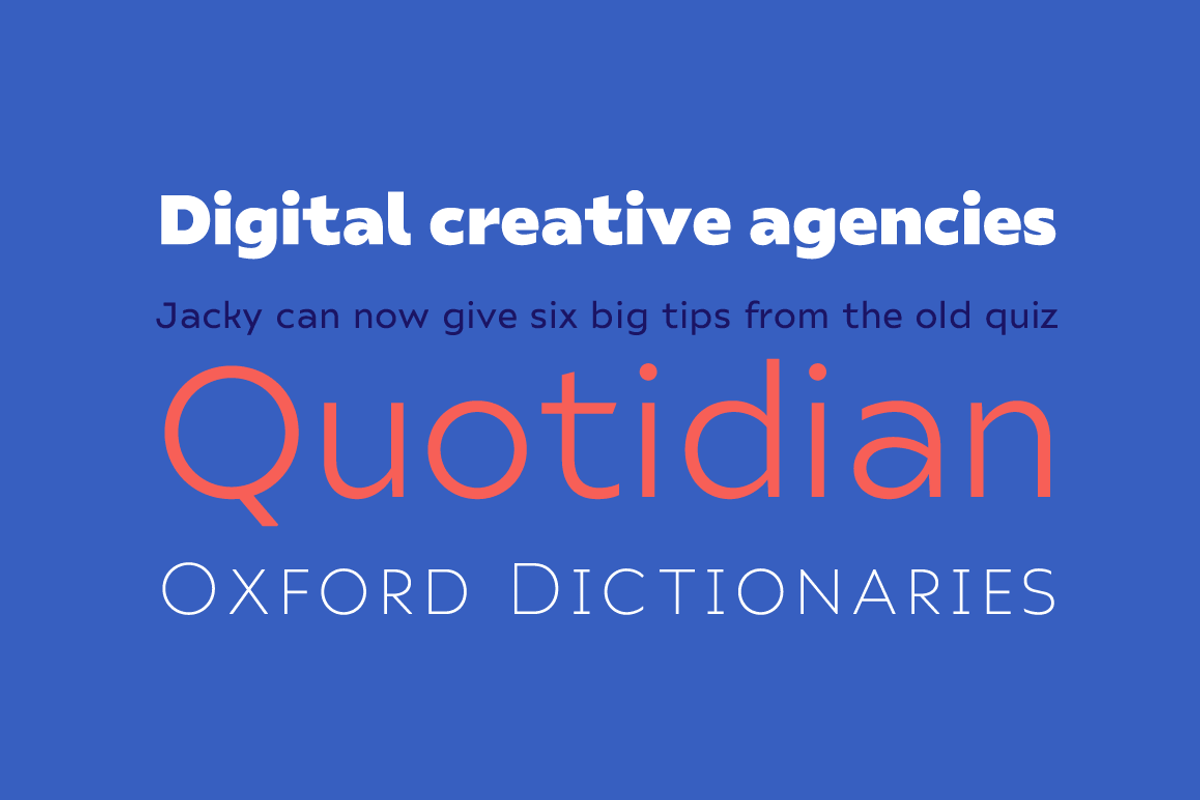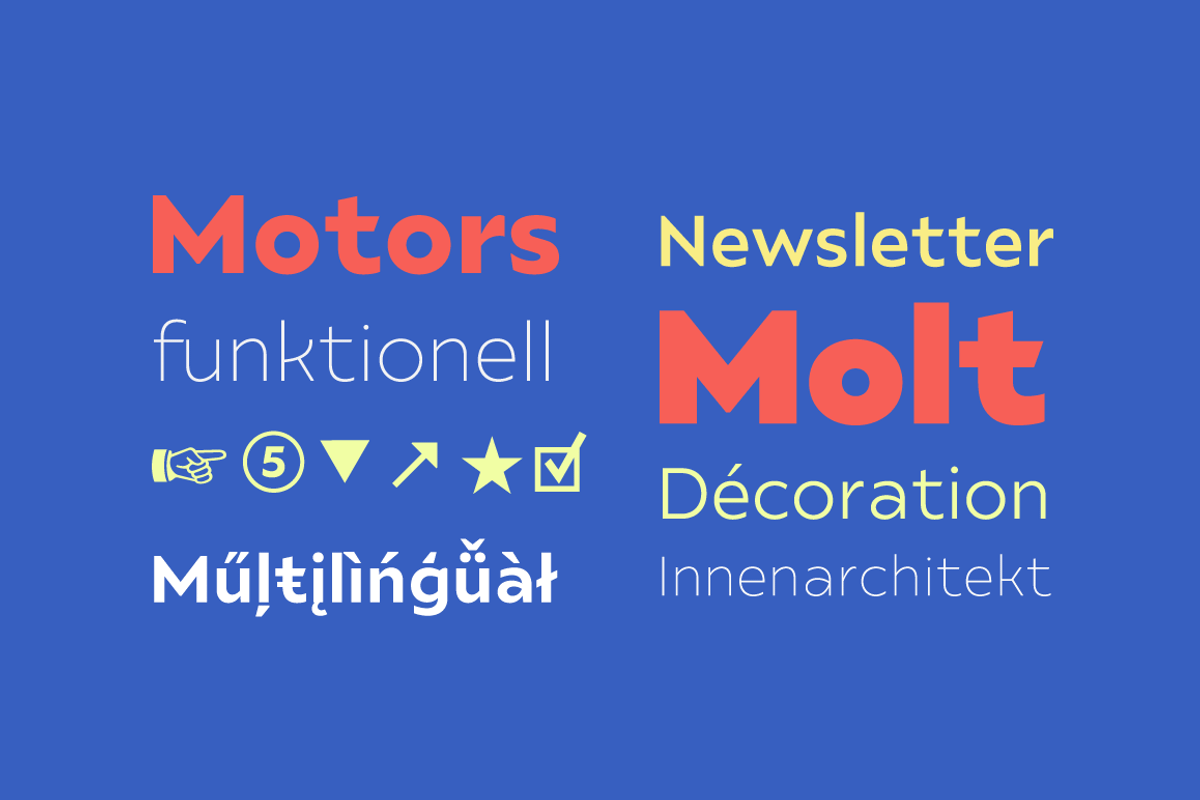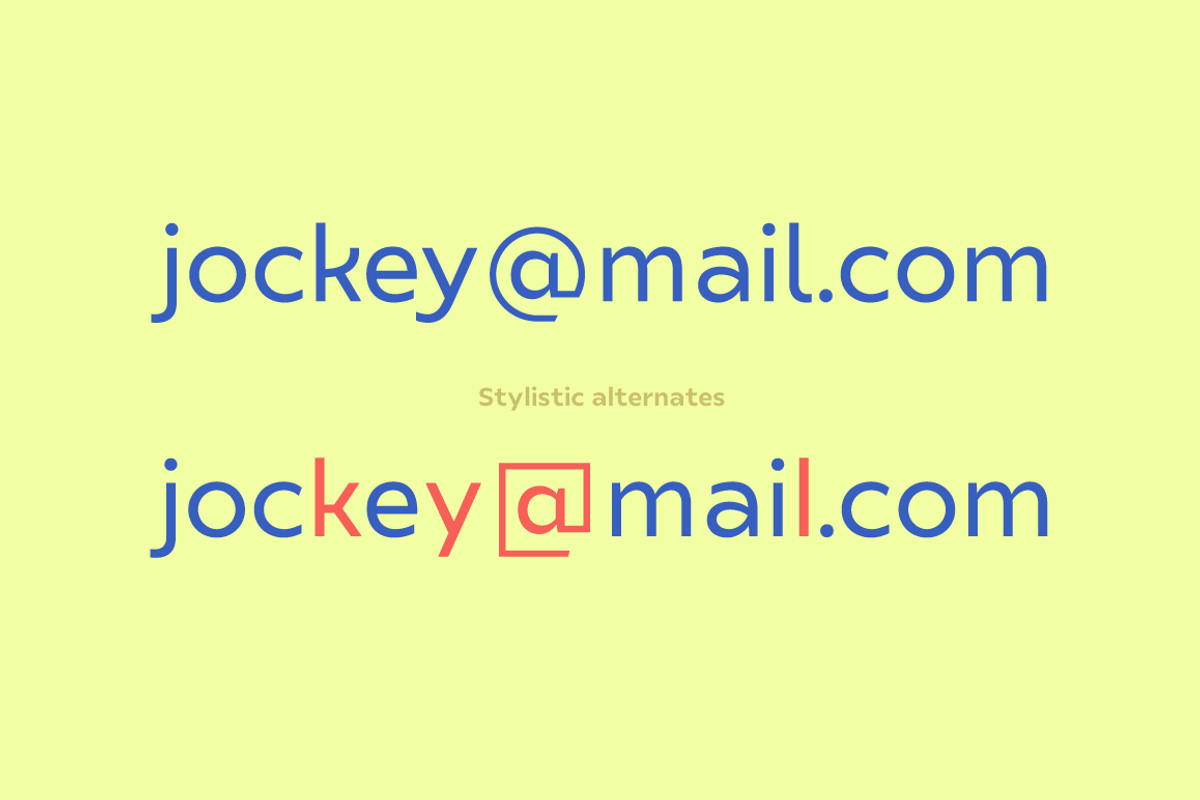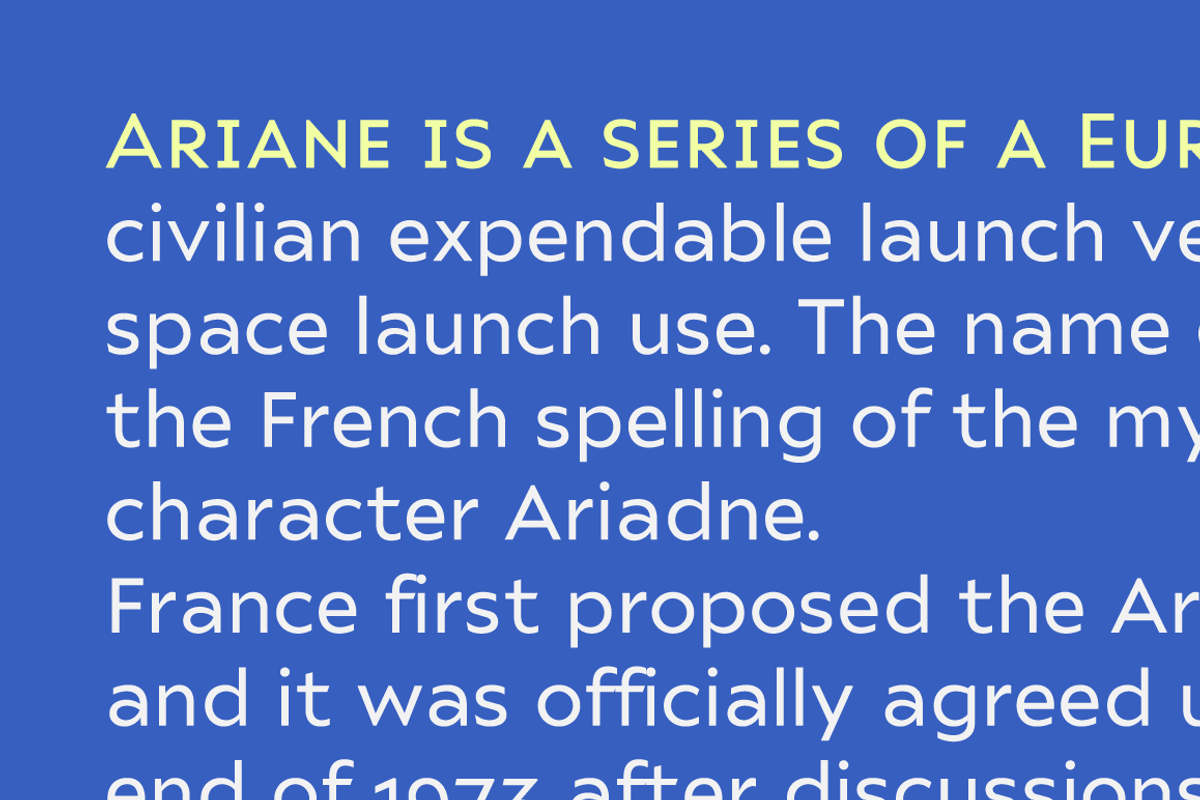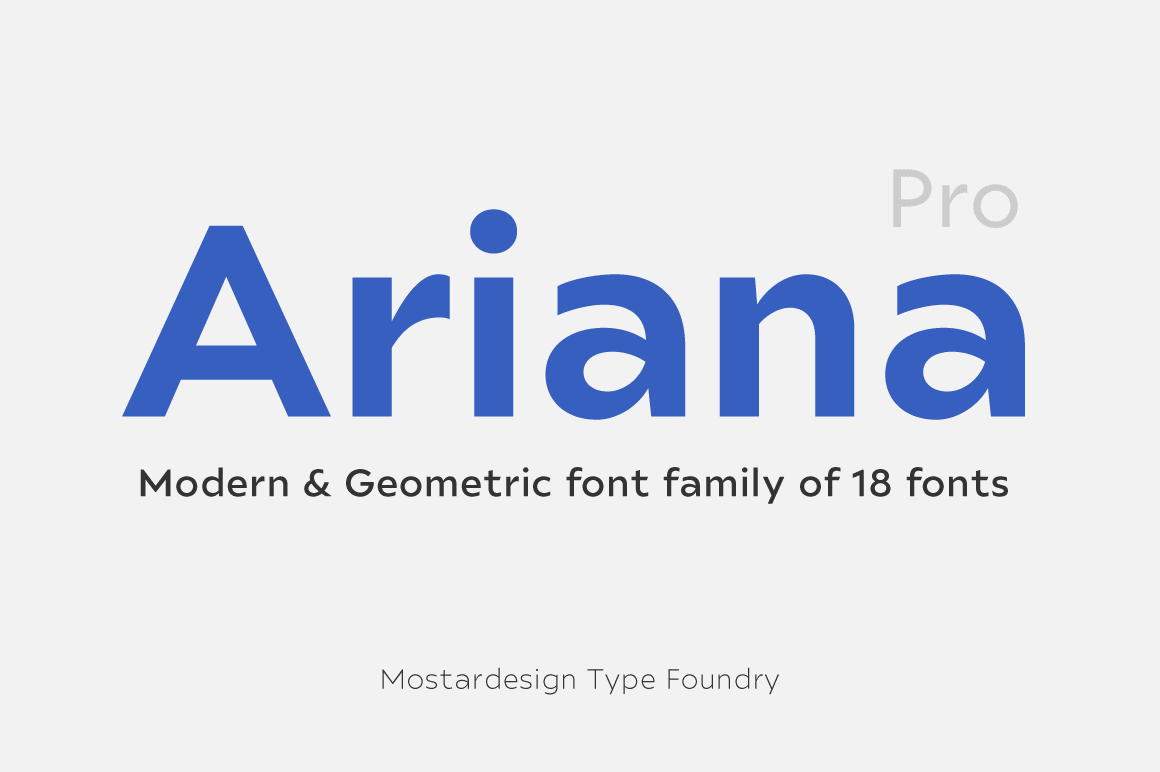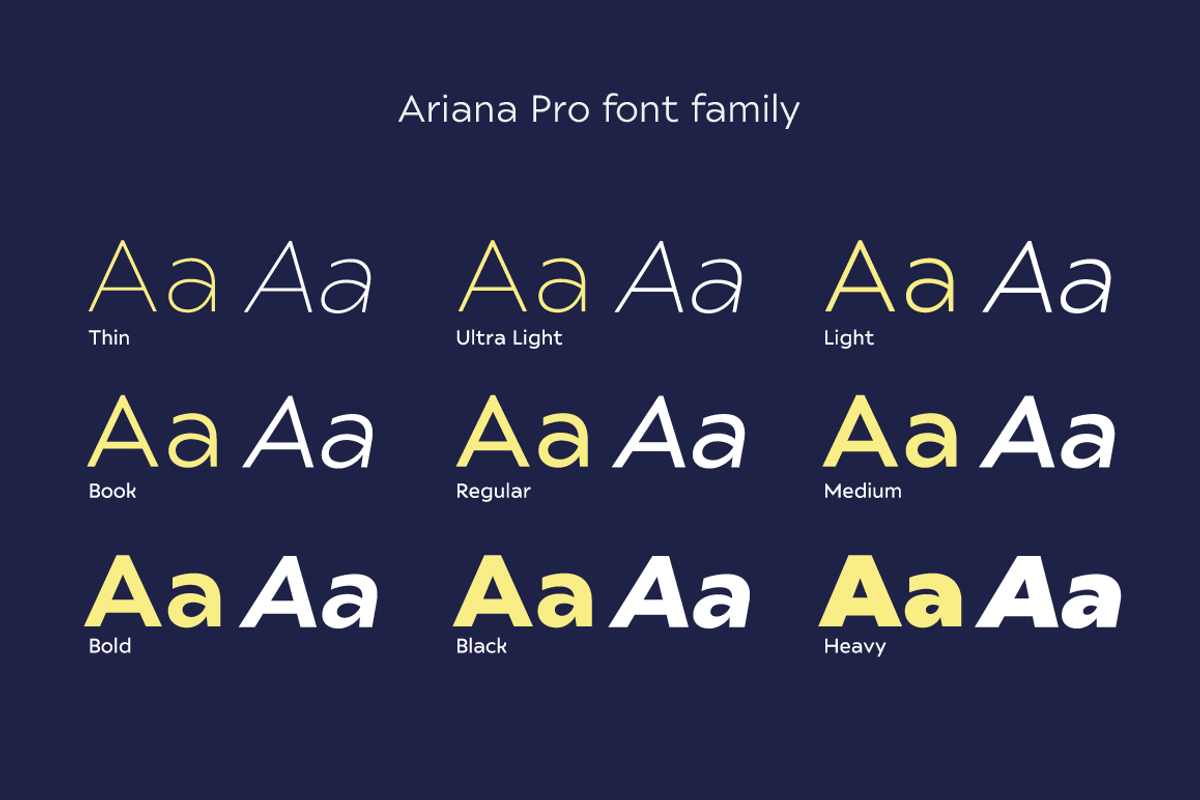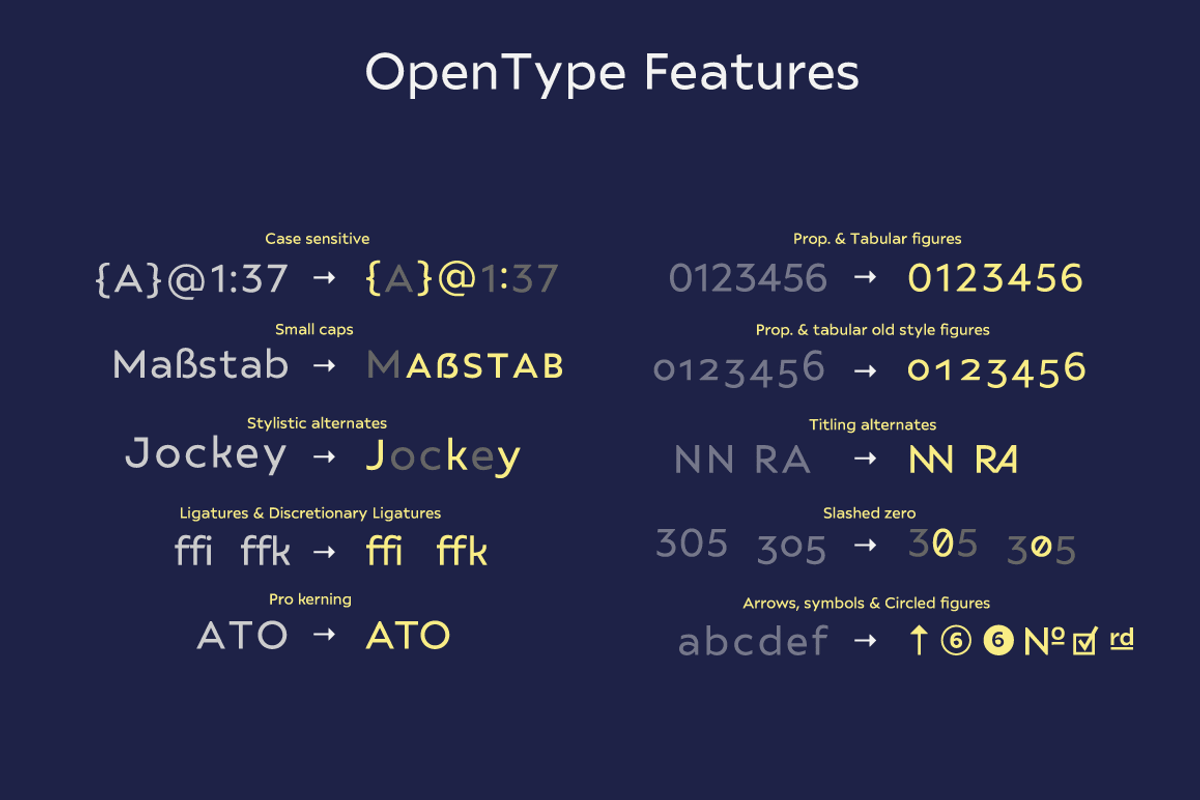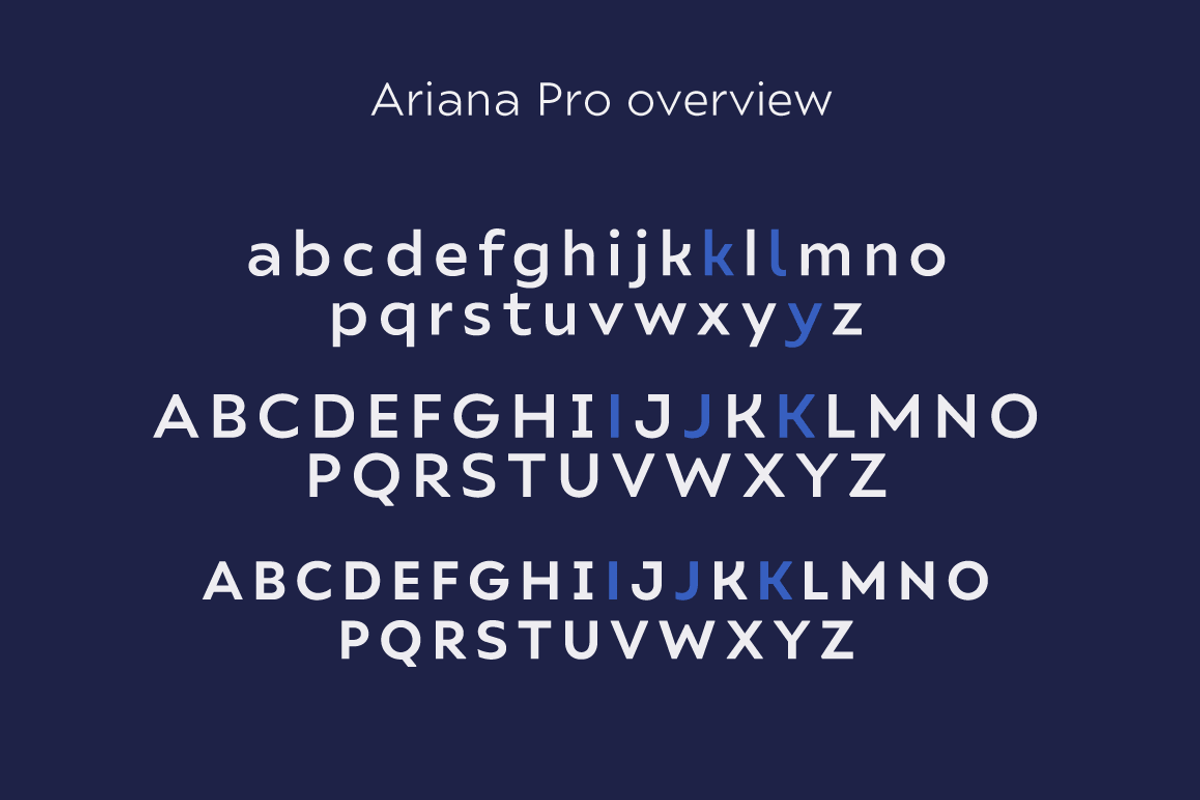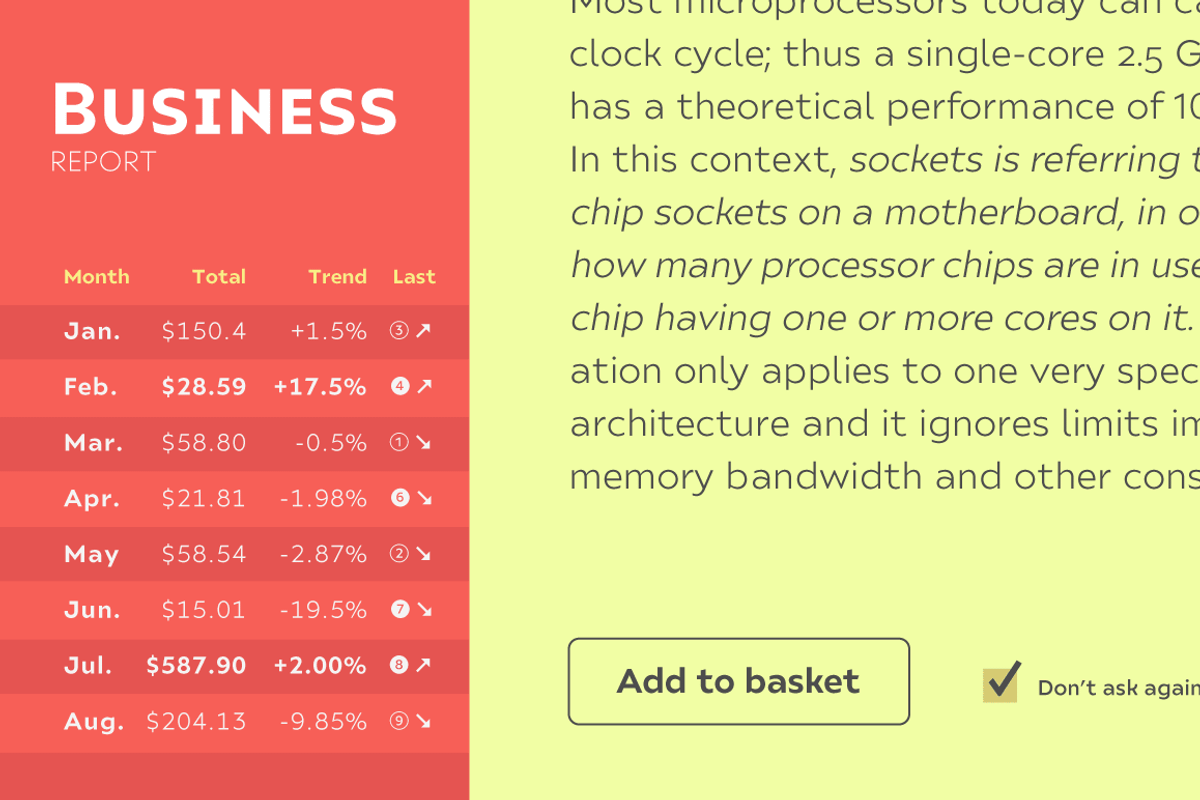
Ariana Pro font family
** Ariana Pro - A geometric sans for all
Ariana Pro is a geometric sans font family . It provides advanced typographical support with features such as case sensitive forms, small caps, ligatures, alternate characters, fractions, slashed zero, circled figures, pro kerning...It comes with a complete range of figure set options – oldstyle and lining figures, each in tabular and proportional widths.
It comes in 9 weights with corresponding italics and it's suited for multiple purposes including editorial use, web font, apps, digital ads, ebook, and also for advertising, long text, packaging and branding. As a modern sans serif font family,
Ariana Pro has true italics to give more style in long texts. It has also an extended character set to support Central and Eastern European as well as Western European languages.
- Designer: Olivier Gourvat
- Design date: February 2019
- Publisher : Mostardesign Type Foundry
Opentype features
- Case Sensitive Forms
- Lining Figures
- Tabular Figures
- Old Style Figures
- Tabular Old Style Figures
- Alternative Fractions
- Numerators
- Denominators
- Superscript
- Scientific Inferiors
- Localized Forms
- Circled figures
- Slashed Zero
- Ordinals
- Titling alternates
- Stylistic Set 1 to 14 (arrows, symbols, alternates…)
- Disc. ligatures
- Pro kerning